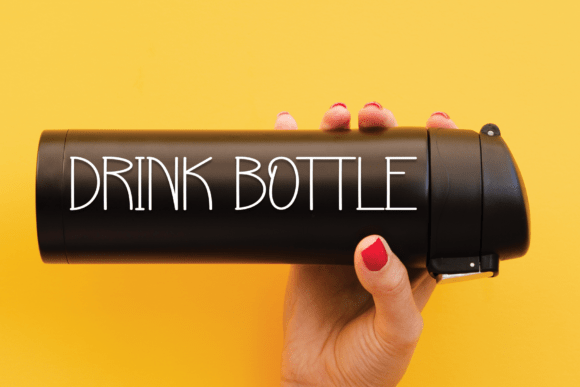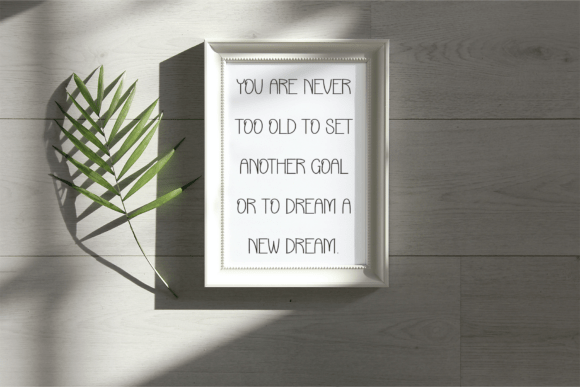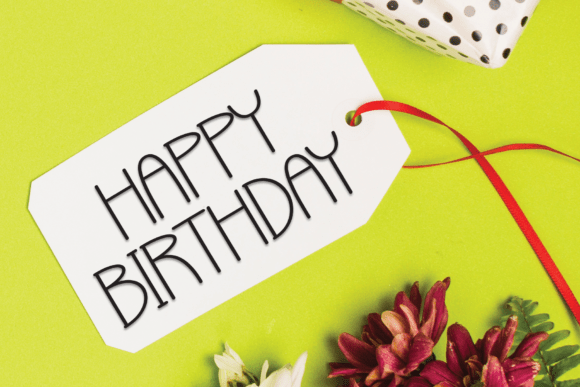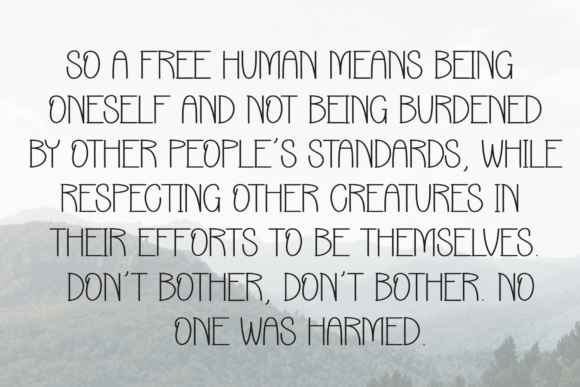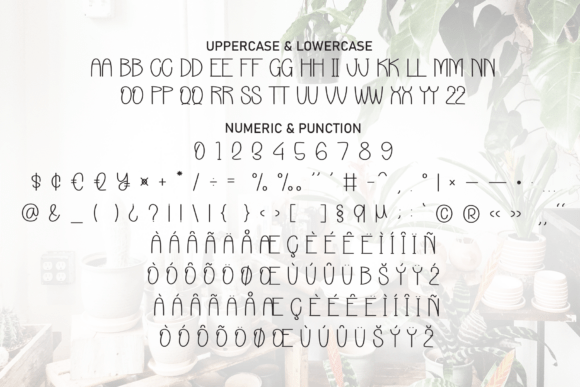
Introducing American Handmade Font: The Perfect Blend of Handcrafted Charm and Modern Sophistication
In the world of typography, fonts play a crucial role in conveying the tone and personality of a brand. For artisans, crafters, and DIY enthusiasts, finding the right font can be a daunting task. That’s where American Handmade Font comes in – a sleek and casual display font that seamlessly blends handmade character with modern charm.
The Characteristics of American Handmade Font
American Handmade Font boasts smooth curves and evenly spaced letters, making it an ideal choice for artisan branding, labels, and DIY-themed projects. This font exudes a sense of handcrafted charm, yet remains clean and professional – a perfect balance of form and function.
With American Handmade Font, you can add a touch of personality to your designs without compromising on readability. Its unique character makes it perfect for:
- Artisan branding: Give your brand a personal touch with a font that feels handcrafted.
- Labels: Create eye-catching labels that stand out with American Handmade Font’s smooth curves and even spacing.
- DIY-themed projects: Add a touch of handmade charm to your DIY projects, from crafting tutorials to product packaging.
The Benefits of Using American Handmade Font
So, why choose American Handmade Font for your design projects? Here are just a few benefits:
- Unique character: American Handmade Font has a distinct personality that sets it apart from other fonts.
- Readability: Despite its handmade feel, American Handmade Font remains clean and easy to read.
- Versatility: Use American Handmade Font for a variety of design projects, from branding to packaging.
- Professional look: American Handmade Font is perfect for designers and crafters who want to create professional-looking designs without sacrificing personality.
Design Tips for Using American Handmade Font
To get the most out of American Handmade Font, here are some design tips to keep in mind:
- Pair with complementary fonts: Combine American Handmade Font with other fonts to create visual interest and hierarchy.
- Experiment with colors: Try out different color combinations to find the perfect match for your design.
- Play with textures: Add texture to your design to give it a more handmade feel.
American Handmade Font is a versatile and unique font that’s perfect for designers and crafters looking to add a touch of personality to their designs. With its smooth curves, evenly spaced letters, and handmade charm, this font is sure to elevate your artisan branding, labels, and DIY-themed projects. So why wait? Give American Handmade Font a try today and discover the perfect blend of handcrafted charm and modern sophistication.
Whether you’re a seasoned designer or a crafter looking to create professional-looking designs, American Handmade Font is an excellent choice. Its clean and professional look makes it perfect for:
- Small business owners looking to create a unique brand identity.
- Crafters and DIY enthusiasts who want to add a personal touch to their projects.
- Designers who want to create visually appealing designs that stand out.
In conclusion, American Handmade Font is a must-have for anyone looking to add a touch of handmade charm to their designs. With its unique character, readability, and versatility, this font is sure to become a favorite among designers and crafters alike.